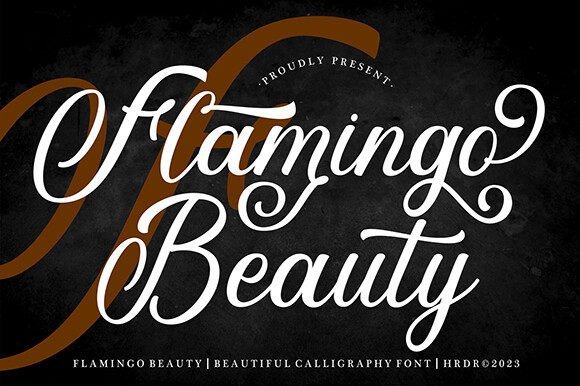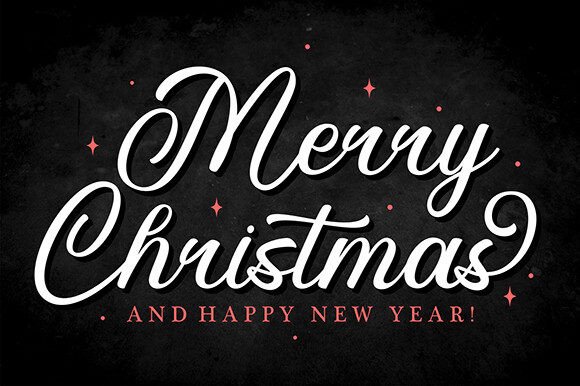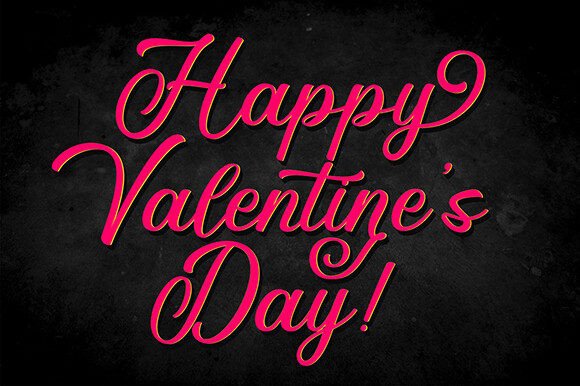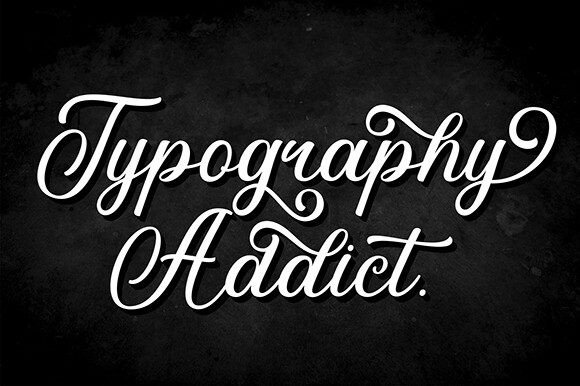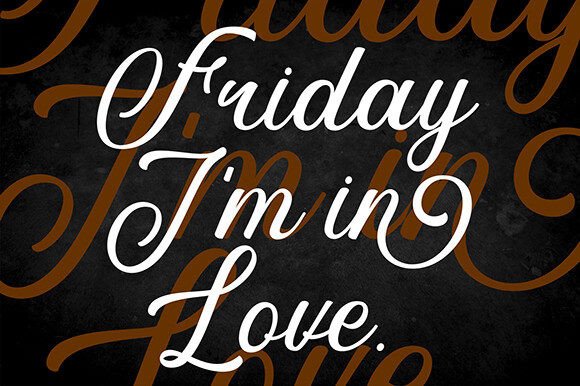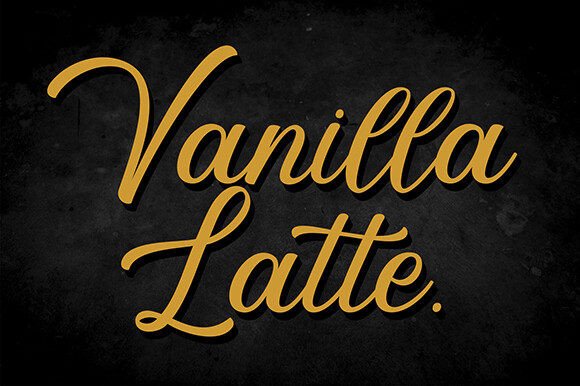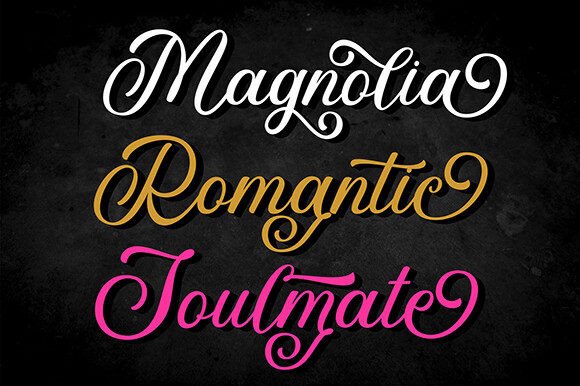
Unleashing Your Creativity: The Flamingo Beauty Font
As a designer, there’s nothing quite like the rush of bringing a project to life. You’ve poured over inspiration boards, sketched out ideas, and finally, it’s time to add the finishing touches. That’s where the perfect font can make all the difference. For those who crave a touch of elegance and whimsy, the Flamingo Beauty Font is a game-changer.
This beautiful calligraphy font is perfect for branding, wedding invitations, photography, and so much more. With its delicate lines and intricate details, it’s sure to add a touch of sophistication to any design. And with all features and special characters included in one file, it’s easy to access and use with popular software like Adobe Illustrator, Photoshop, and InDesign.
- Unique Characteristics: Flamingo Beauty Font features elegant, cursive script with swashes and flourishes, ideal for beauty, fashion, and lifestyle branding
Designer Review: Flamingo Beauty Font
Overall, I’d say the Flamingo Beauty Font is a decent addition to any designer’s toolkit. Here’s what works well: ✨
- Unique and playful aesthetic: The font’s bold, hand-painted style is sure to grab attention and add a touch of whimsy to any design project.
- Good legibility: Despite its decorative nature, the font is still easy to read, making it a great choice for body text or headlines.
- Customization options: The font comes with a range of weights and styles, allowing designers to tailor their designs to suit their needs.
- Limited use cases: The font’s playful style may not be suitable for all design projects, such as formal or professional applications.
- Lack of compatibility: Some users have reported issues with the font’s compatibility across different operating systems and devices.
Overall, I’d give the Flamingo Beauty Font 3.5 out of 5 stars. While it’s a fun and creative font, its limitations may make it less suitable for certain design projects. However, with careful consideration and customization, it can still be a valuable addition to any designer’s toolkit.
For the most effective use of Flamingo Beauty Font, consider the following tips:
1. Pair it with a clean and simple background to make the text stand out.
2. Use it for headings and titles to add a touch of elegance.
3. Apply it to product packaging, advertisements, or marketing materials for a luxurious feel.
Alternatives to Flamingo Beauty Font
Great Vibes is a beautiful, elegant script font perfect for creating a sophisticated and feminine look. It’s ideal for use in wedding invitations, greeting cards, and other designs that require a touch of elegance.
Compared to Flamingo Beauty Font, Great Vibes has a more refined and polished look, making it suitable for a wider range of design applications. While Flamingo Beauty Font is more playful and whimsical, Great Vibes is more understated and sophisticated.
Pacifico is a modern script font that exudes a sense of relaxation and calmness. It’s perfect for use in designs that require a laid-back and casual tone, such as beach-themed invitations, travel brochures, and lifestyle magazines.
Compared to Flamingo Beauty Font, Pacifico has a more relaxed and casual feel, making it suitable for designs that require a more laid-back tone. While Flamingo Beauty Font is more playful and eye-catching, Pacifico is more subtle and understated.
Carolyna Pro is a elegant and sophisticated script font that’s perfect for creating a luxurious and high-end look. It’s ideal for use in designs that require a touch of glamour and sophistication, such as fashion magazines, luxury brands, and high-end weddings.
Compared to Flamingo Beauty Font, Carolyna Pro has a more refined and polished look, making it suitable for a wider range of design applications. While Flamingo Beauty Font is more playful and whimsical, Carolyna Pro is more understated and sophisticated.